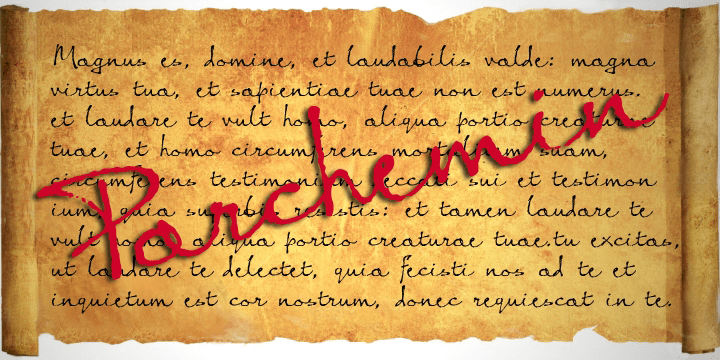
Parchemin
Font Family by Scholtz Fonts
The name ?Parchemin? is derived from the word in old English for ?parchment.? Our modern word ?parchment? changed its spelling to conform with French spelling practices during the French occupation of England. The font was created to suggest an informal but antique form of handwriting written on parchment with a quill pen. The scratchiness of the old quill pen is conveyed in the roughness of the characters. The font was loosely based on the font Queen.